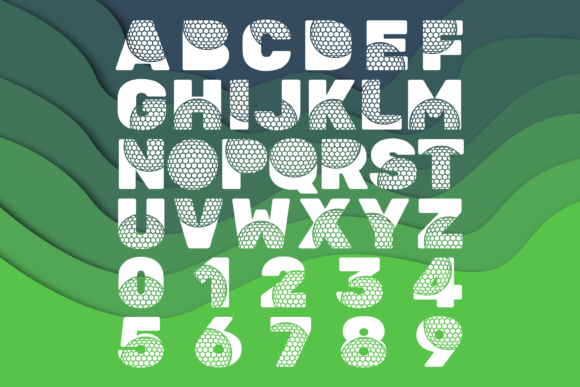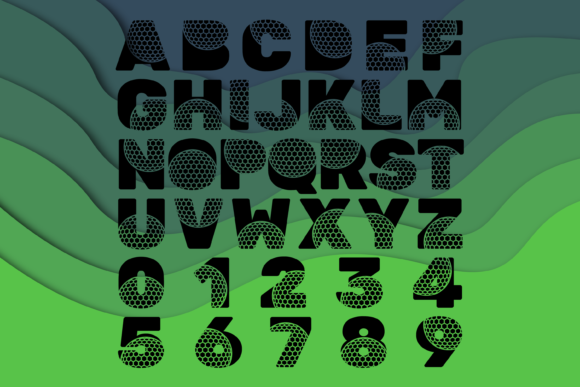
Bogey Font: The Ultimate Decorative Font for Your Creative Projects
Bogey is an incredibly cool decorative font. Whether you use it for custom designs, DIY crafts, or just any creation that requires a lovely touch, this font will be an amazing choice. In this article, we’ll explore the features and benefits of the Bogey font, and how you can use it to elevate your designs and crafts.
What is Bogey Font?
Bogey font is a decorative font designed to add a touch of elegance and sophistication to your creative projects. Its unique and intricate design makes it perfect for a wide range of applications, from custom designs and DIY crafts to stationery and digital media.
Features of Bogey Font
- Unique Design: Bogey font features a distinctive and intricate design that sets it apart from other fonts. Its elegant and sophisticated style makes it perfect for adding a touch of luxury to your designs.
- High Versatility: Bogey font can be used for a wide range of applications, from custom designs and DIY crafts to digital media and stationery.
- Easy to Read: Despite its decorative nature, Bogey font is easy to read and understand, making it perfect for use in body text and headings.
- Scalable: Bogey font is highly scalable, meaning it can be used at a variety of sizes without losing its elegance and sophistication.
Benefits of Using Bogey Font
Using Bogey font in your creative projects offers a range of benefits, including:
- Enhanced Visual Appeal: Bogey font adds a touch of elegance and sophistication to your designs, making them more visually appealing.
- Increased Creativity: The unique design of Bogey font inspires creativity and can help you to think outside the box when it comes to your designs.
- Professional Look: Bogey font gives your designs a professional look, making them perfect for use in business and marketing materials.
How to Use Bogey Font in Your Designs
Using Bogey font in your designs is easy. Here are a few tips to get you started:
- Pair it with Other Fonts: Bogey font pairs well with other fonts, such as sans-serif and script fonts. Experiment with different combinations to find the one that works best for your design.
- Use it for Headings: Bogey font is perfect for use in headings and titles. Its elegant design makes it a great choice for adding a touch of sophistication to your designs.
- Add it to Your Digital Media: Bogey font can be used in digital media, such as social media graphics and blog posts. Its scalable design makes it perfect for use at a variety of sizes.
Bogey Font in DIY Crafts
Bogey font is not just limited to digital designs. It can also be used in DIY crafts, such as:
- Hand Lettering: Use Bogey font as inspiration for your hand lettering projects. Its elegant design makes it perfect for adding a touch of sophistication to your work.
- Paper Crafting: Bogey font can be used in paper crafting projects, such as card making and scrapbooking. Its intricate design makes it perfect for adding a touch of elegance to your creations.
- Sign Making: Bogey font can be used to create beautiful signs for your home or business. Its bold design makes it easy to read and understand.
In conclusion, Bogey font is an incredibly cool decorative font that can add a touch of elegance and sophistication to your creative projects. Its unique design, high versatility, and ease of use make it perfect for a wide range of applications, from custom designs and DIY crafts to digital media and stationery. Whether you’re a designer, crafter, or just someone who loves to create, Bogey font is an amazing choice.